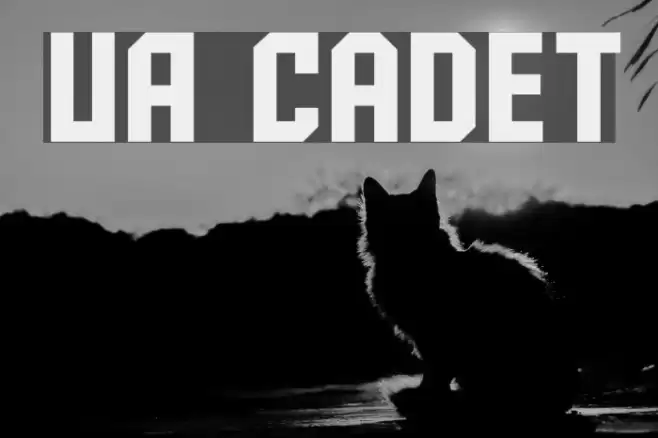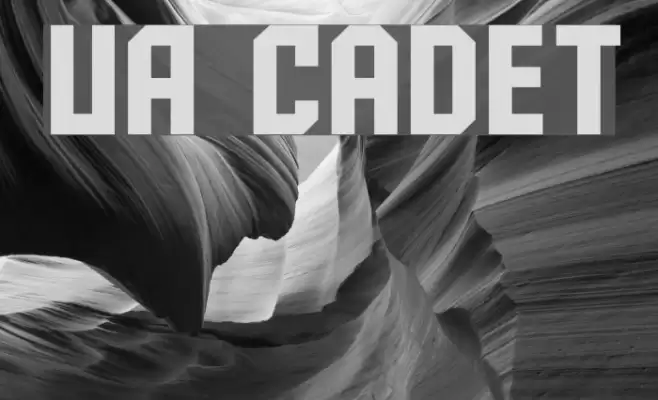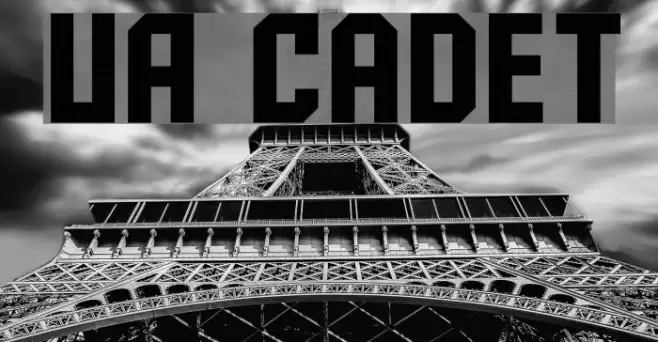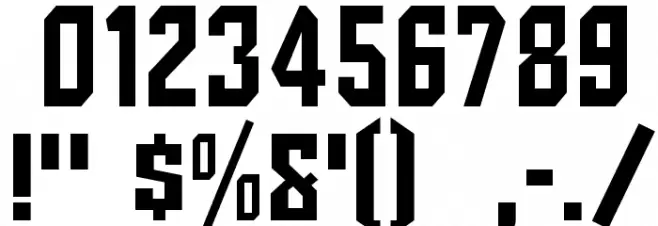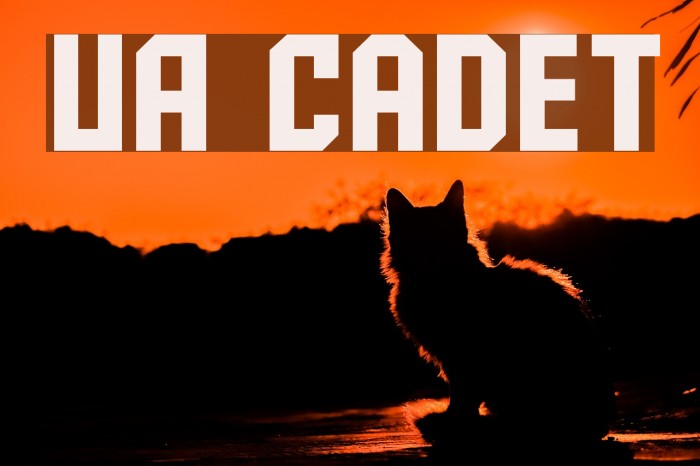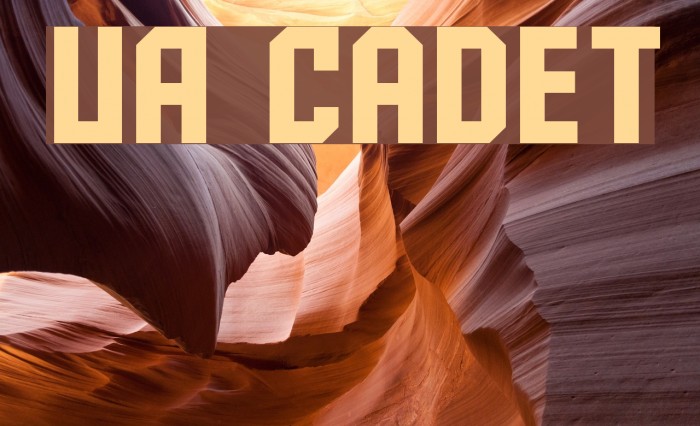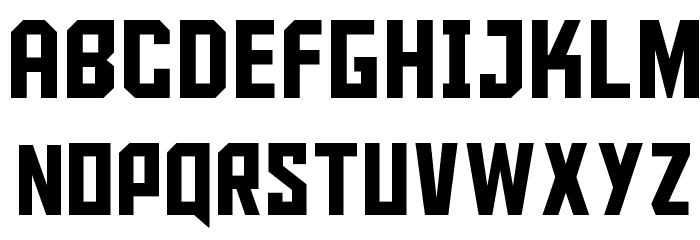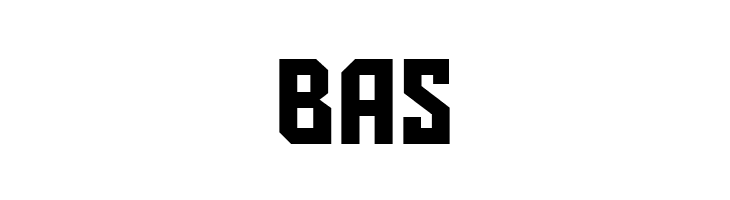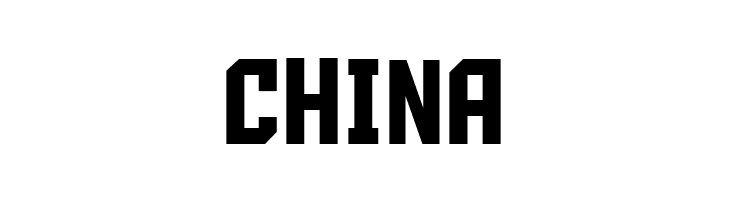
UA Cadet Font
UA Cadet Description
This font features a bold and geometric design with a strong, military-inspired aesthetic. The characters are blocky and angular, with uniform stroke widths that give it a robust and commanding presence. The uppercase letters are particularly striking, with sharp edges and a consistent height that enhances readability. The numerals and special characters maintain the same bold style, ensuring a cohesive look across all text. This font's design is reminiscent of stencil or industrial typefaces, making it ideal for projects that require a sense of strength and authority.
A bold, geometric font with a military-inspired, stencil-like design from Uncategorized fonts.
- Proposed Projects: Ideal for use in posters, signage, branding for military or industrial-themed projects, and any design requiring a strong, authoritative presence.